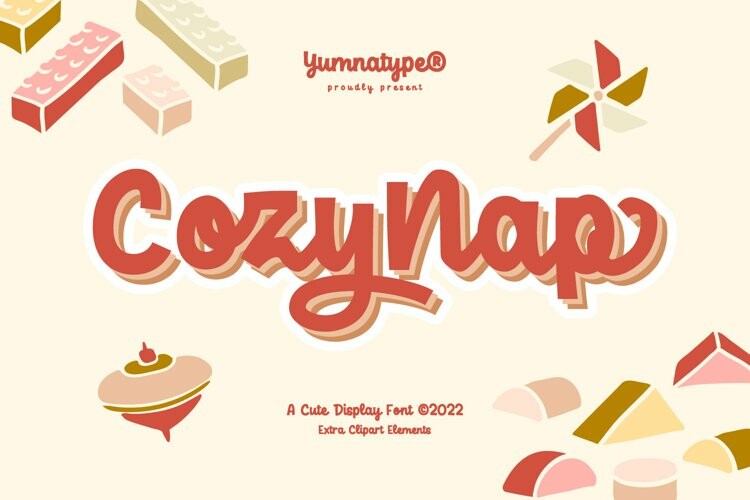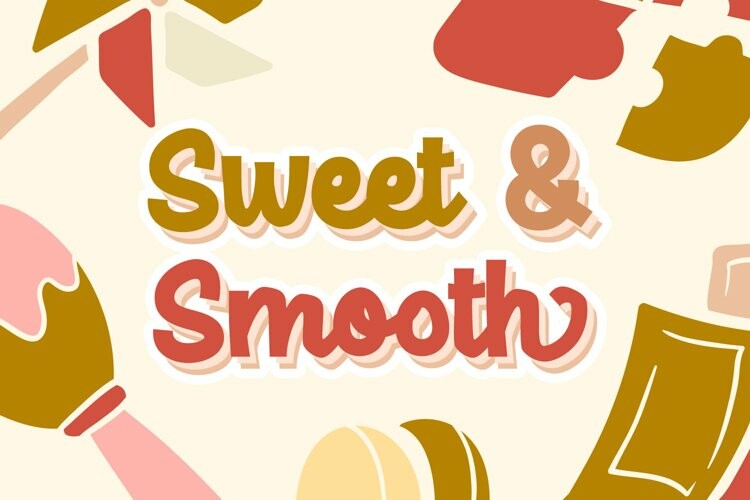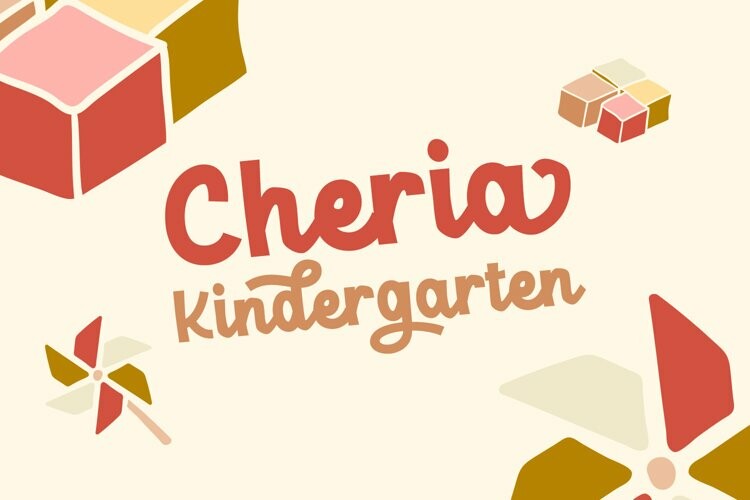
Cozy Nap Font
Cozy Nap FontCozy nap is a cute display font. The dramatic bold and heavy styles works well in header or title text. While it’s easy to read, there are also a little bit curvy characters to add cute vibes. This font becomes more special with illustrations as the extras.